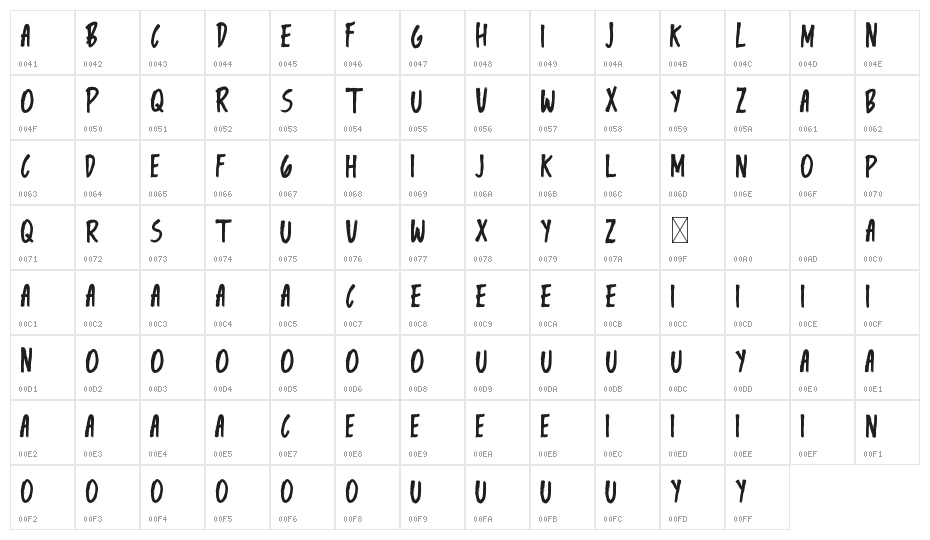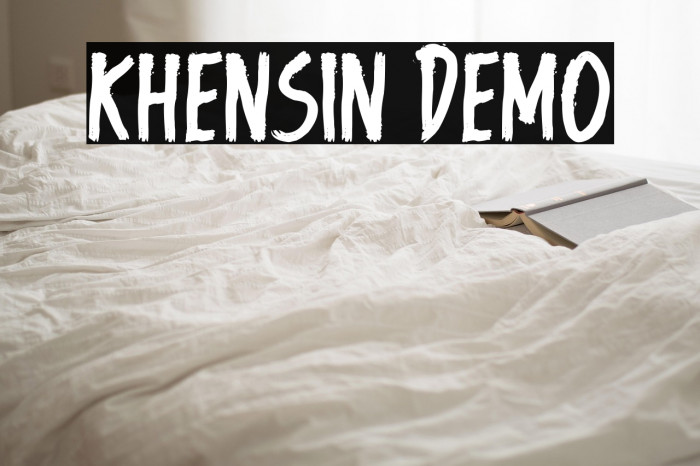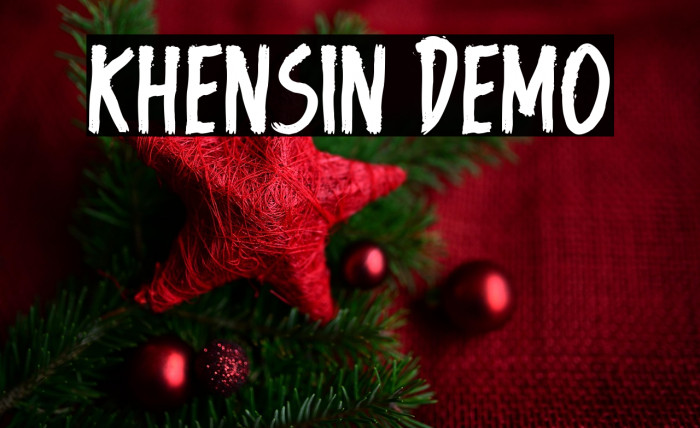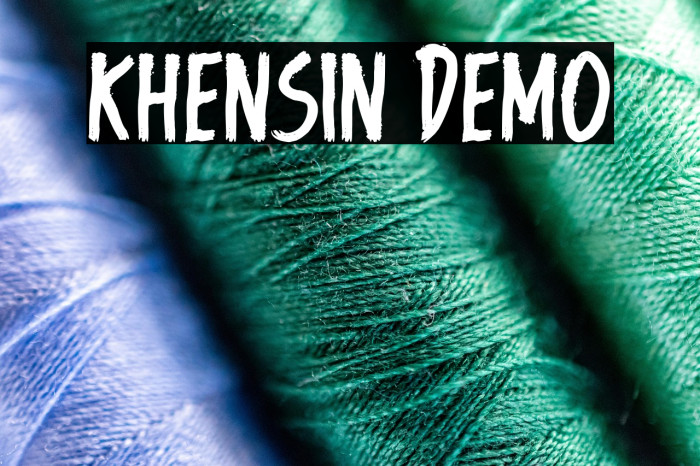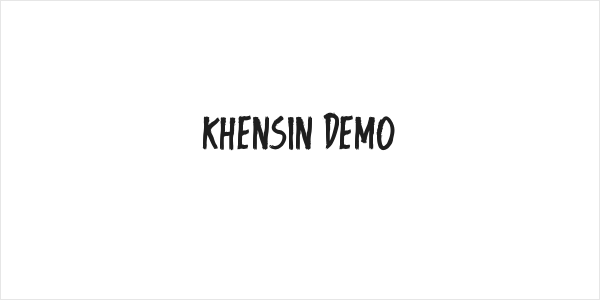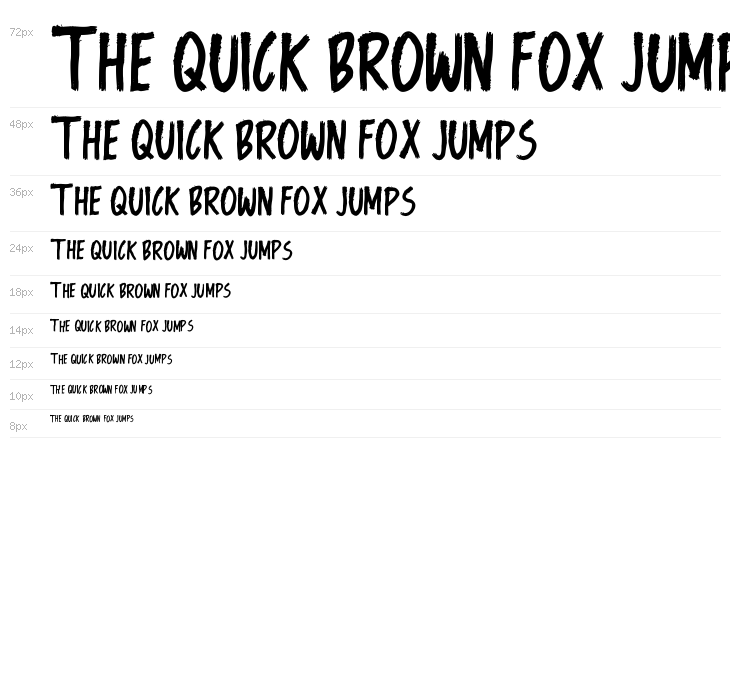
Khensin Demo Font
Khensin Demo Description
This font features a bold, brush-like appearance with a hand-drawn aesthetic. The strokes are uneven and textured, giving it a dynamic and energetic feel. Each character is distinct, with a slightly irregular baseline that adds to its casual and artistic style. The uppercase and lowercase letters maintain a consistent height, while the numbers and special characters blend seamlessly with the overall design. This font is perfect for projects that require a personal touch or a creative flair, such as posters, branding, or social media graphics.
| Proposed Projects | Ideal for posters, branding, social media graphics, and creative projects. |